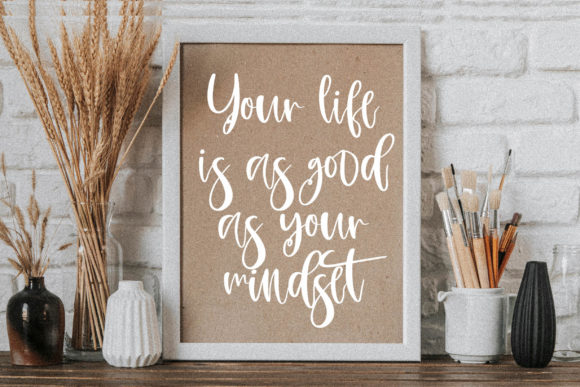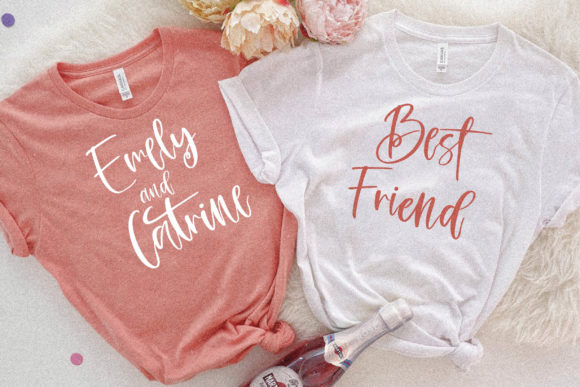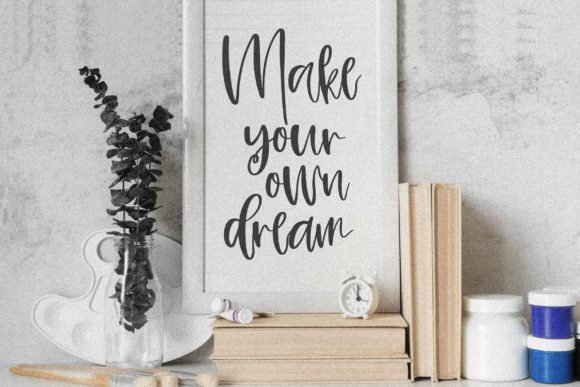
Introduction to Amsterdam Listing Font
Amsterdam Listing is a whimsical script font with a relaxed theme, featuring a lovely style.
Key Features of Amsterdam Listing Font
Why Choose Amsterdam Listing Font?
Amsterdam Listing Font offers exceptional quality and versatility, making it a valuable addition to your design toolkit. Whether you’re creating for personal projects or commercial use, Amsterdam Listing Font delivers professional results.